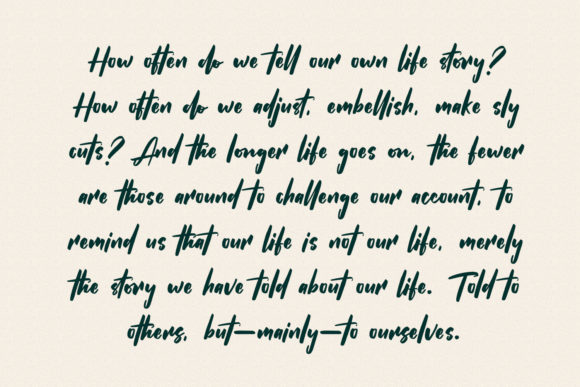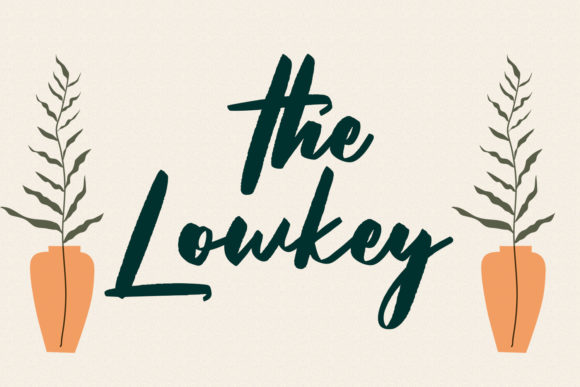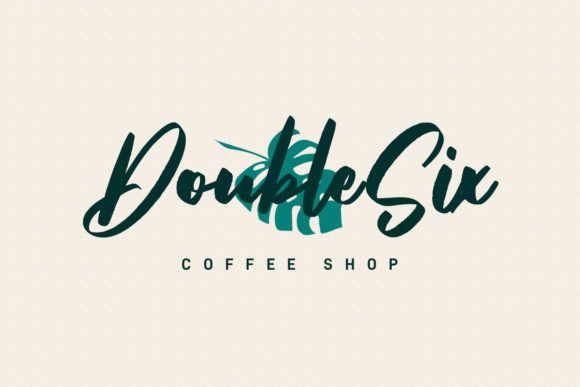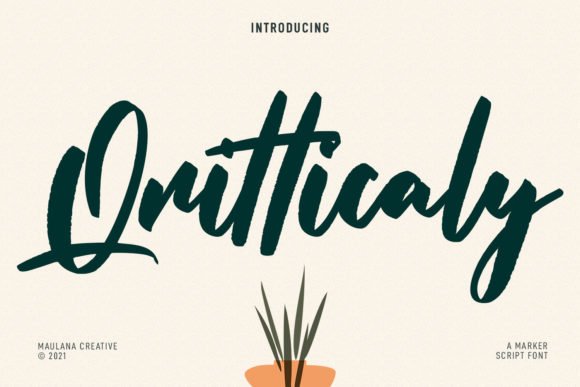
Introduction to Qritticaly Font
Qritticaly is a bold and modern script font.
Its flexibility and neat style will brighten up each of your designs Have fun with this cool font and explore its endless variations.
Key Features of Qritticaly Font
Why Choose Qritticaly Font?
Qritticaly Font offers exceptional quality and versatility, making it a valuable addition to your design toolkit. Whether you’re creating for personal projects or commercial use, Qritticaly Font delivers professional results.